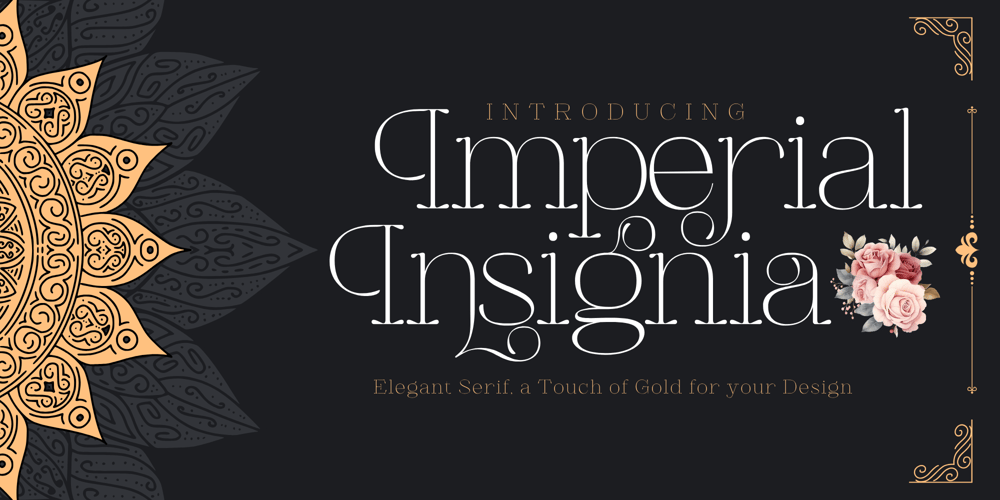
Imperial Insignia Font Family was designed by Candi Erwanto and published by Objectype. Imperial Insignia contains 1 styles and family package options. Imperial Insignia is a serif font that celebrates power and grandeur. The name refers to something related to a kingdom or empire, creating an image of a strong and authoritative font.“Insignia” in this name refers to the subtle details in the font design that make it unique and easily recognizable. It is a symbol or sign indicating status or membership in a certain group.With its strong and authoritative character, and unique details that make it stand out, Imperial Insignia is an ideal serif font for projects that require an elegant and formal touch. From business branding to wedding invitation design, this font adds a touch of elegance and professionalism to every project.Imperial Insignia is specifically designed for the luxury market, making it a perfect choice for designs related to jewelry and luxury goods. With Imperial Insignia, you’re not just using a font, but you’re also conveying a message about strength, grandeur, and individuality.